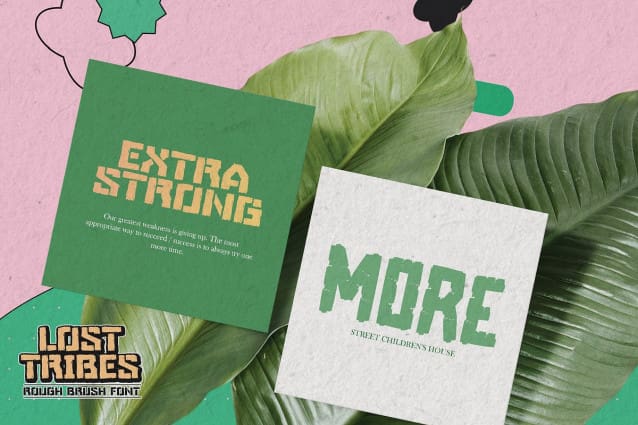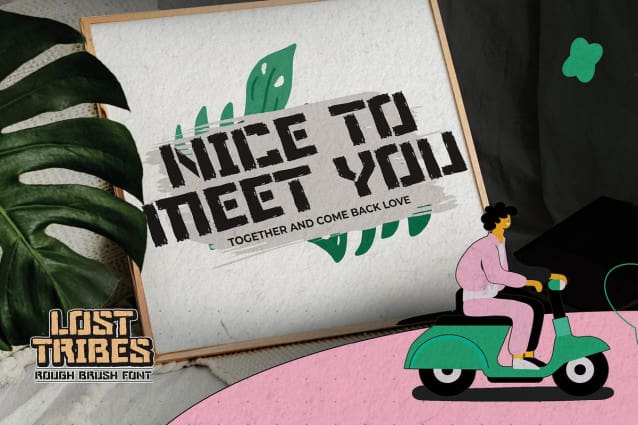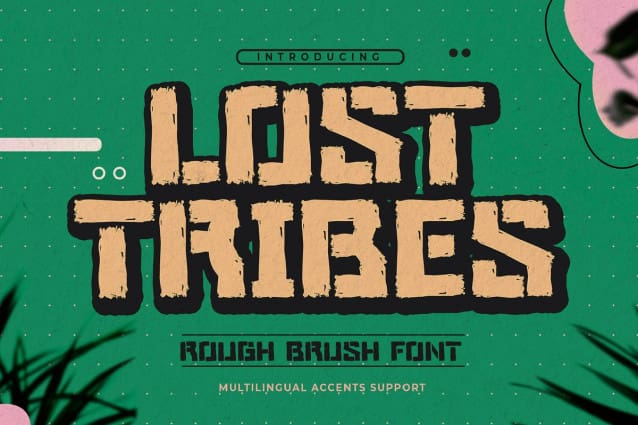
Lost Tribes Font
Lost Tribes Font is great for your next creative project such as logos, printed quotes, invitations, cards, product packaging, headers, Logotype, Letterhead, Poster, Design this font is great for your creative projects such as watermark on photography, and perfect for logos & branding, invitation,advertisements,product designs, stationery, wedding designs,label ,product packaging, special events or anything that need handwritting taste. That is has charming, authentic and relaxed characteristic more natural look to your text.